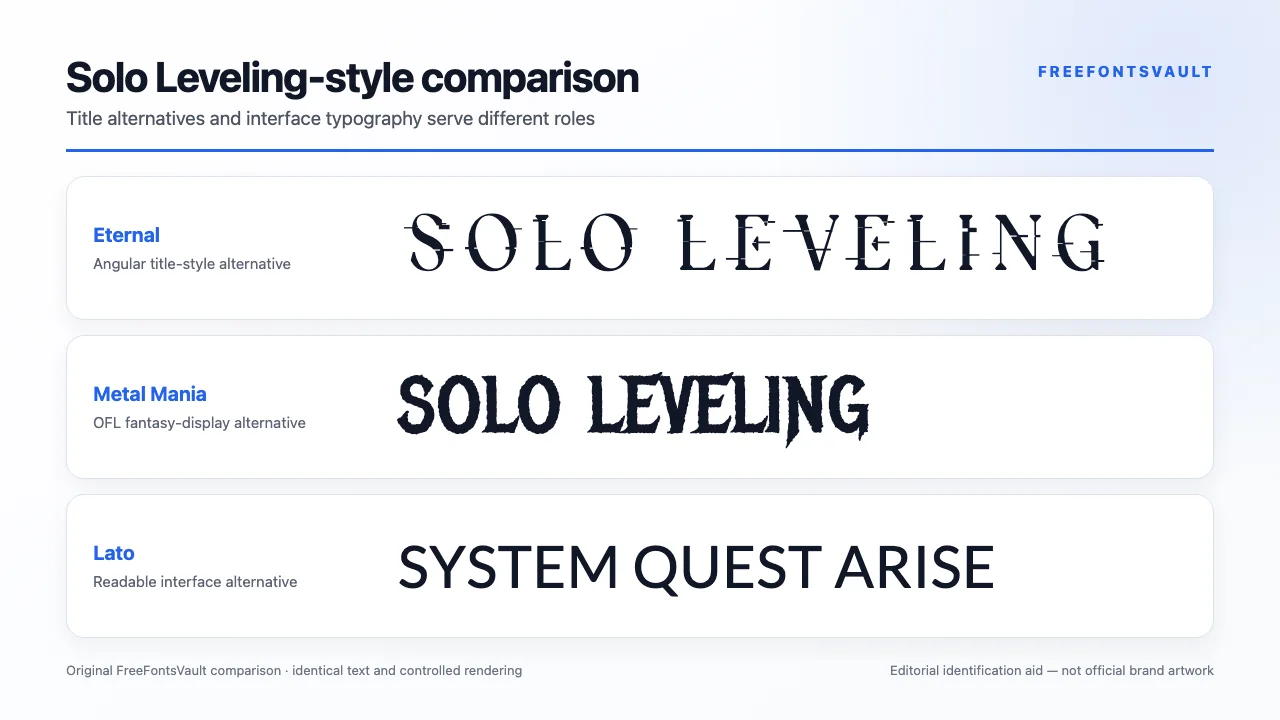
Solo Leveling Font
Quick answer: The English Solo Leveling title is best treated as custom production lettering. Eternal is a useful visual alternative for the sharp main-title look, but we found no public credit from the anime production confirming it as the official font. The other fonts in the preview target game and interface moods rather than one universal logo.
Solo Leveling appears across a web novel, webtoon, anime, and games, and those products do not all use the same typography. This guide labels each preview by the visual role it can approximate instead of presenting a mixed group of fonts as one official family.
Preview Solo Leveling-style fonts
Start with Eternal for an angular title. Use Metal Mania for a dramatic “ARISE” treatment, and compare the rounded sans-serif options when recreating system panels, labels, or game-interface text.
Matched or Identified Fonts
Eternal
| FG Studios title-style alternative
Metal Mania Regular
| Fantasy display alternative
Trueno Round Bold
| Rounded UI alternative
Circe Rounded Extra Bold
| Rounded UI alternative
Lato Regular
| Readable UI alternative
Carossoft bold
| Rounded UI alternative
What font is used in the Solo Leveling logo?
The official anime site displays a narrow, sharp English title lockup with carefully fitted letterforms and a separate subtitle treatment. It also credits the production partners and animation team, but it does not provide a retail font name for the logo.
Eternal resembles the main title because of its pointed construction and dramatic display proportions. That similarity makes it a strong generator option, not proof of production use. For interface-style text, cleaner rounded families such as Trueno Round, Circe Rounded, Lato, and Carossoft produce a more believable hierarchy than forcing the logo display face into every label.
What the Solo Leveling comparison proves
CandidateEvidence statusWhat matchesWhere it differs
Official anime title artworkPrimary visual reference; no public retail-font credit foundNarrow, sharp silhouette and fitted letteringNot supplied as a public type family
EternalFG Studios visual alternativeAngular display constructionNot credited by the anime production
Metal ManiaOFL display alternativeHigh-energy pointed detailsWider and more decorative than the title
Rounded UI groupGeneral interface alternativesReadable system-panel hierarchyNot evidence of an official Solo Leveling UI family
Original FreeFontsVault font comparison for solo leveling font
Original FreeFontsVault comparison separating title-style and interface alternatives.
Inspect the stored Eternal record and Metal Mania record, then compare them with the official artwork before choosing a direction.
Eternal
A close visual alternative for the main title’s sharp fantasy-action silhouette. Keep the wording short and compare the S, O, L, E, and G shapes carefully.
Metal Mania Regular
A high-energy display option for “ARISE” and other dramatic callouts. It is an alternative treatment, not the confirmed font for the anime or game logo.
Rounded interface alternatives
Trueno Round, Circe Rounded, Lato, and Carossoft are more suitable for readable system panels and game-like labels. They represent a UI direction rather than a single official Solo Leveling type family.
How to build a Solo Leveling-style graphic
1. Choose whether you are recreating the anime title, an “ARISE” callout, or a game-interface panel.
2. Use Eternal for the title or a rounded sans serif for small interface text.
3. Keep title tracking compact and preserve the narrow silhouette.
4. Use dark navy or black with cool blue, violet, or pale highlights for a shadow-themed palette.
5. Export the title and UI text separately so each can use the right contrast and size.
Do not describe an exported image as official Solo Leveling artwork. For original projects, change the wording, palette, composition, and effects rather than copying a complete title lockup.
Which fonts work for Solo Leveling game UI text?
Rounded sans-serif options in the preview are better for readable system panels, while Eternal and Metal Mania are display choices.
Why are several fonts shown on one page?
The anime, webtoon, games, and interface graphics use different visual roles. The gallery separates title, callout, and UI alternatives rather than claiming one official family.